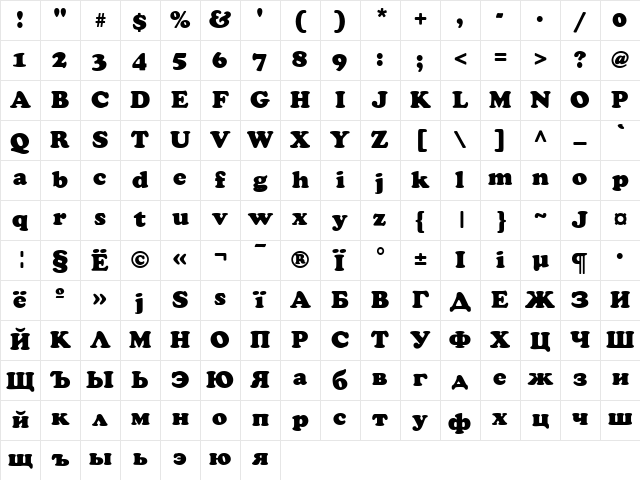
AG_Cooper Regular
AG_Cooper Family
Design Context for AG_Cooper
AG_Cooper is a composed and adaptable typeface that performs quietly and consistently across a wide range of design contexts.